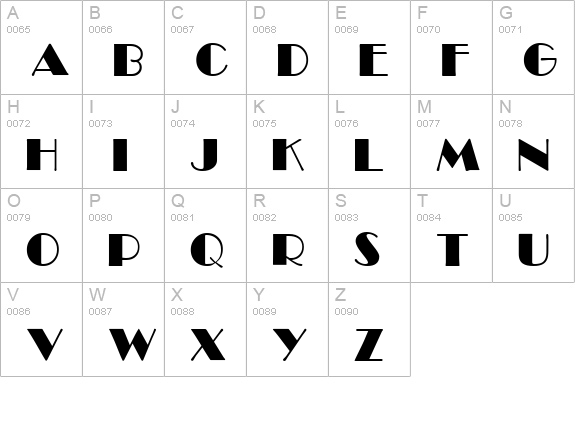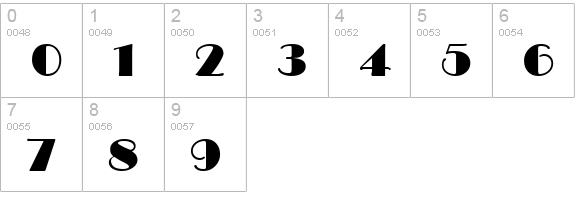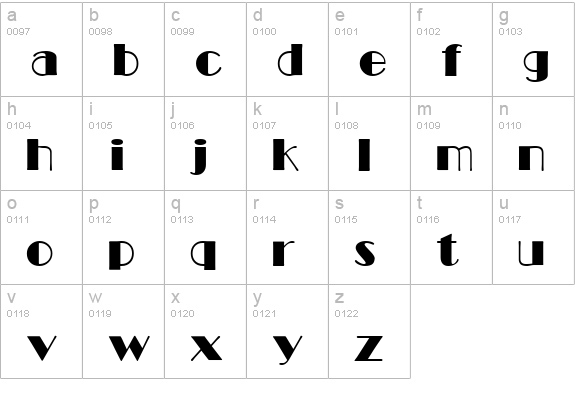
Broadway Regular Font Details
Broadway Regular is the standard, neutral variant in the Broadway typeface family \xE2\x80\x94 well suited to general body text, paragraphs, and standard typographic work.
Broadway Regular font is a classic and stylish typeface that exudes a sense of elegance and sophistication. Its bold and eye-catching appearance makes it perfect for creating attention-grabbing designs. The font features strong, clean lines with a touch of retro charm, making it versatile for a wide range of projects. Best of all, Broadway Regular font is available for free download at FontsMarket.com. This means you can easily access and use this stunning font in your design projects without any cost. Whether you're working on branding, advertising, invitations, or any other creative endeavor, Broadway Regular font is sure to make a bold statement and elevate your designs to the next level. Download it today and add a touch of timeless style to your work!